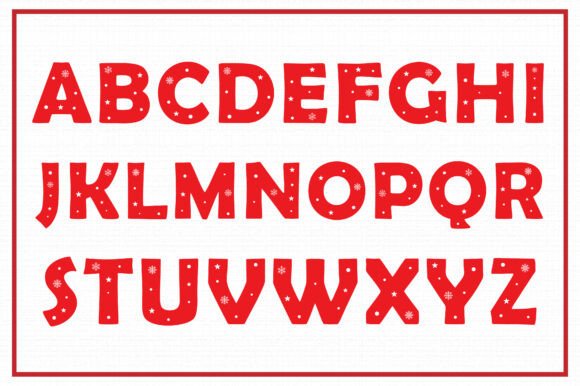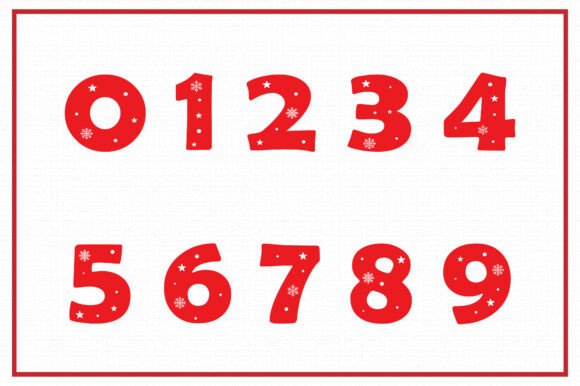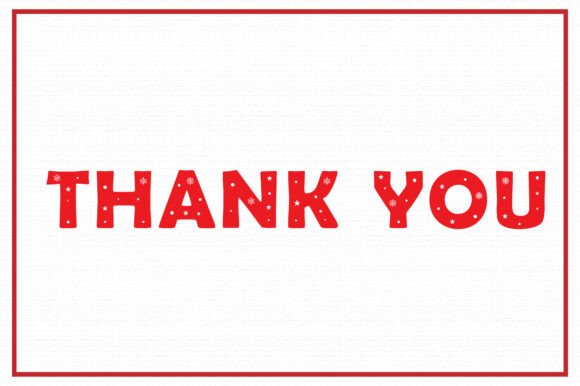
Add a Cozy Winter Touch to Your Creative Projects with Happy New Year Font
As the winter season approaches, it’s the perfect time to get creative and add a festive touch to your projects. Introducing the Happy New Year Alphabet, a delightful font designed to bring warmth and joy to your designs. This charming alphabet is adorned with cute snow details, making it an ideal choice for New Year celebrations, Christmas themes, winter crafts, and children’s projects.
Whether you’re creating greeting cards, invitations, stickers, labels, posters, or digital graphics, this letter set will instantly elevate your designs with its festive and joyful feel. The Happy New Year Alphabet is compatible with major design programs, including Cricut, Silhouette, Procreate, Canva, and Photoshop, allowing you to seamlessly integrate it into your workflow.
Perfect for Various Projects
This versatile alphabet is suitable for a wide range of projects, including:
- New Year cards & Christmas cards: Create personalized and eye-catching cards for your loved ones.
- Winter party decorations: Add a touch of festivity to your party decorations, banners, and garlands.
- Stickers & labels: Design custom stickers and labels for gifts, party favors, and holiday treats.
- Kids crafts and school projects: Engage children in fun and creative activities with this delightful alphabet.
- Digital planners: Incorporate this font into your digital planners and organizers for a festive touch.
- Scrapbooking: Relive cherished memories with beautiful scrapbook pages featuring this charming alphabet.
- Holiday merchandise designs: Create stunning designs for holiday-themed merchandise, such as t-shirts, mugs, and tote bags.
Bring Warm Festive Vibes to Your Artwork
The Happy New Year Alphabet is designed to evoke a sense of warmth and festivity, making it perfect for creators, crafters, teachers, parents, and small businesses. With this font, you can:
- Create cozy winter-themed artwork for your home or office.
- Design engaging and interactive learning materials for children.
- Develop unique and personalized gifts for friends and family.
- Enhance your digital and print projects with a touch of festive flair.
Key Features of the Happy New Year Alphabet
- Cute snow details add a charming touch to each letter.
- Compatible with major design programs, including Cricut, Silhouette, Procreate, Canva, and Photoshop.
- Suitable for both print and digital projects.
- Perfect for New Year celebrations, Christmas themes, winter crafts, and children’s projects.
- Endless design possibilities for greeting cards, invitations, stickers, labels, posters, and digital graphics.
Get Creative with the Happy New Year Alphabet
- Festive greeting cards and invitations.
- Cozy winter-themed artwork and decorations.
- Engaging children’s projects and learning materials.
- Unique and personalized gifts.
With the Happy New Year Alphabet, you’ll be able to create stunning designs that capture the essence of the winter season. So why wait? Get creative and make this winter one to remember!